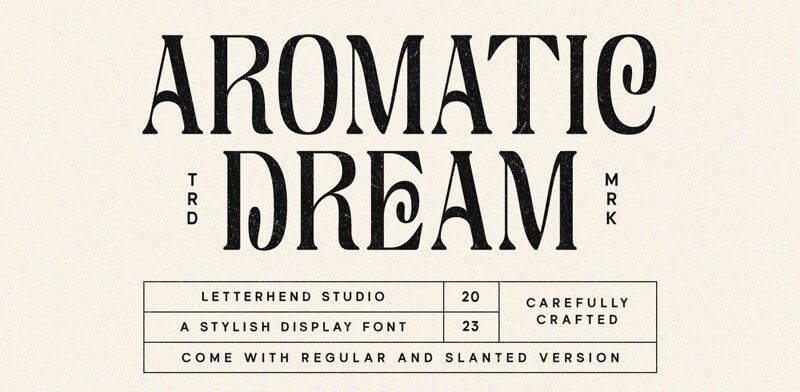
Aromatic Dream, a captivating display font crafted by Letterhend Studio, exudes a sense of nostalgia and charm. With its elegant, vintage-inspired curves and distinct letterforms, this font evokes the allure of bygone eras. The delicate balance between modern and retro elements creates a visually striking and timeless aesthetic, perfect for projects seeking to convey a sense of warmth, sophistication, and timelessness.
Aromatic Dream's versatility makes it a compelling choice for a wide range of design applications, from branding and packaging to editorial layouts and event materials. Its vintage-inspired personality lends itself beautifully to logo design, wedding stationery, and promotional campaigns seeking to capture a touch of nostalgia and charm. The font's strong visual impact and versatility make it a valuable asset for designers and brands looking to create memorable, impactful, and visually captivating designs.